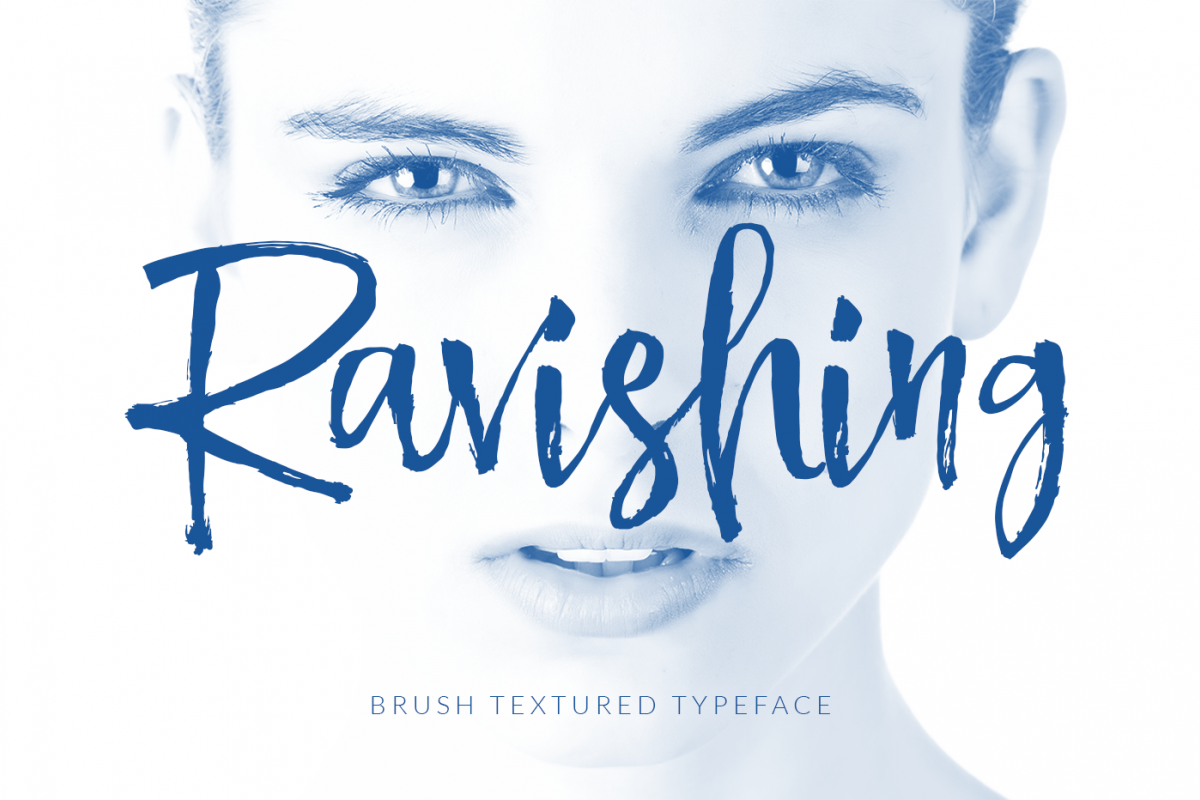
Ravishing
**INTRODUCTION :**Ravishing is another multi-purpose font that you can use it for many different type of projects and designs such as fashion, stores, cafe and so on... Please see great for section to find out more.
**GREAT FOR;**
- Restaurants
- Menu
- Blog pages
- Web pages
- T-shirt designs and etc..
Just like the fonts name absolutely RAVISHING!